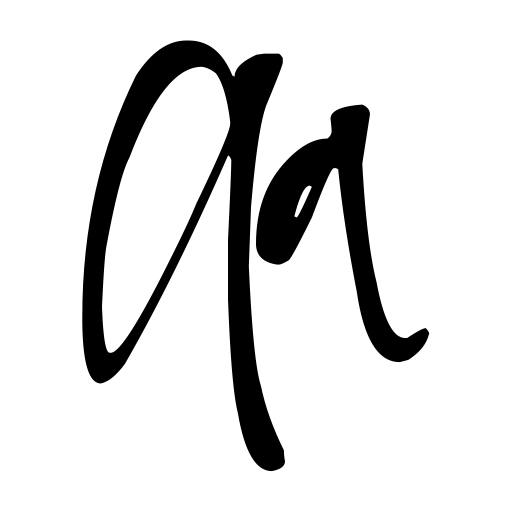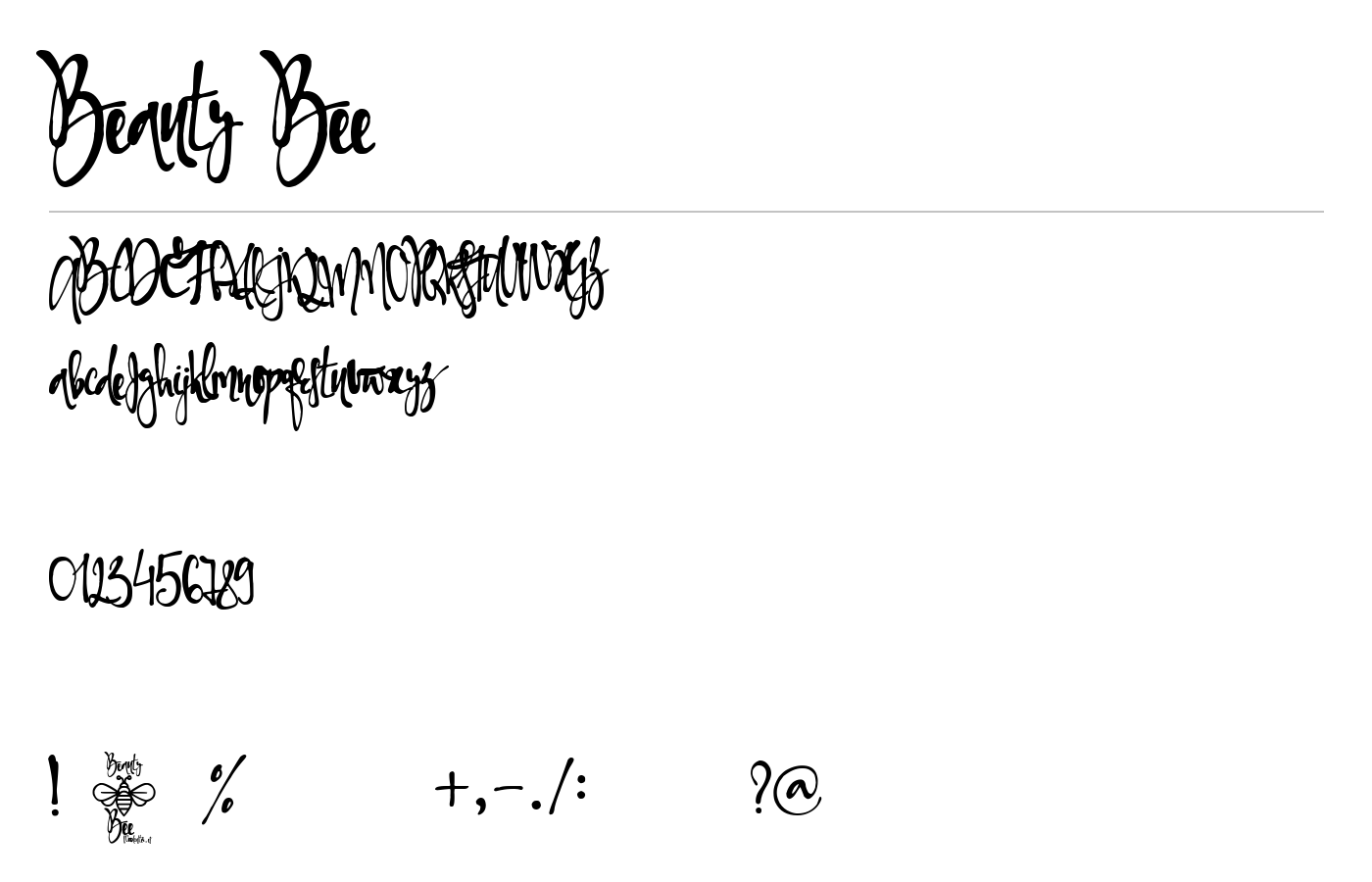
Beauty Bee is a lively, handwritten script font with a casual, organic feel, featuring tall, narrow letterforms and energetic, flowing strokes that mimic natural brush lettering. Its playful style and uneven baseline give it a personal, artistic touch ideal for creative branding, invitations, and any design seeking a warm, approachable vibe. This font works beautifully in projects that want to convey friendliness and creativity, from boutique logos to social media graphics.
Beauty Bee Font
About Beauty Bee Font